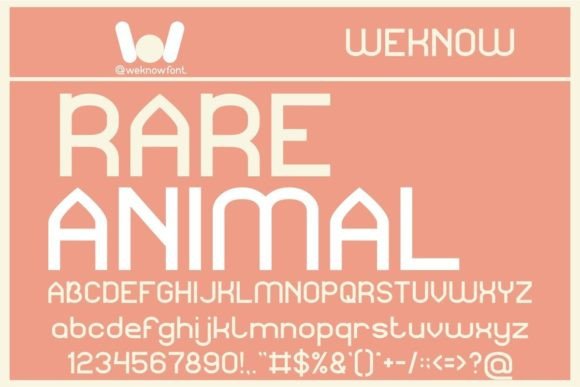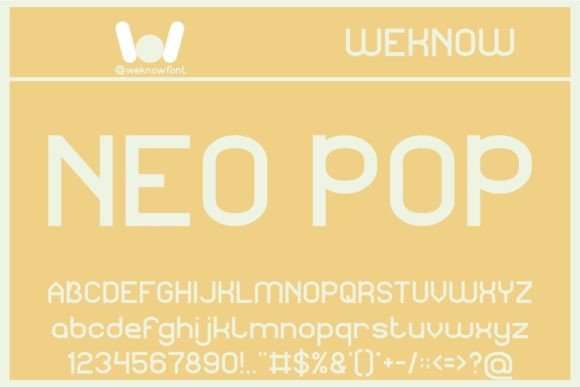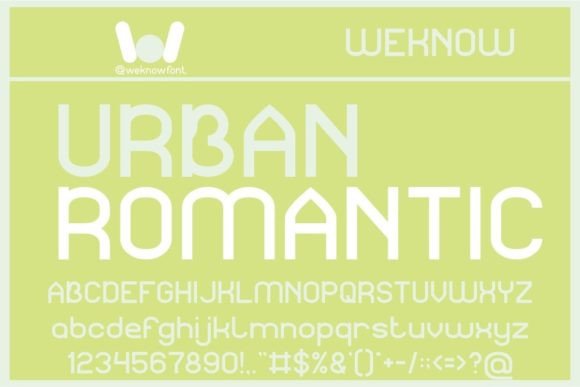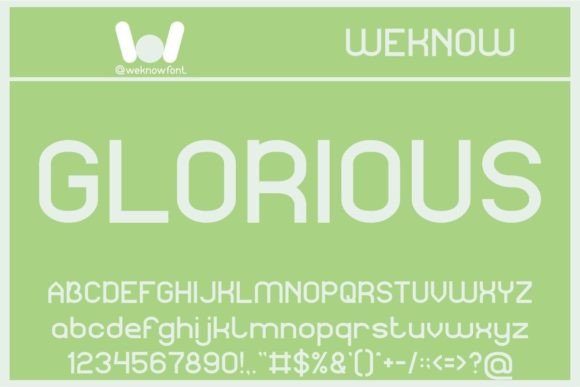
Introduction to Inner Beauty Font
Inner Beauty is a sans serif font suitable for a logo, logotype, headline font, in corporate identity, brand identity, apparel industry, poster, music, movie, game, magazine, book, comic, cartoon, YouTube, Instagram, website, or any of your creative design projects.
Key Features of Inner Beauty Font
Why Choose Inner Beauty Font?
Inner Beauty Font offers exceptional quality and versatility, making it a valuable addition to your design toolkit. Whether you’re creating for personal projects or commercial use, Inner Beauty Font delivers professional results.